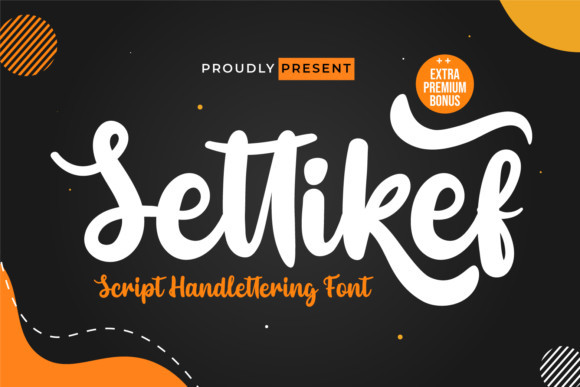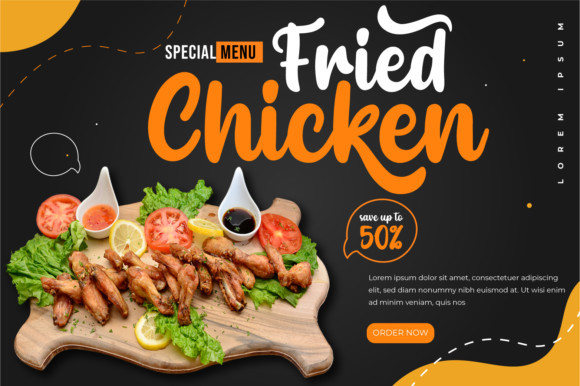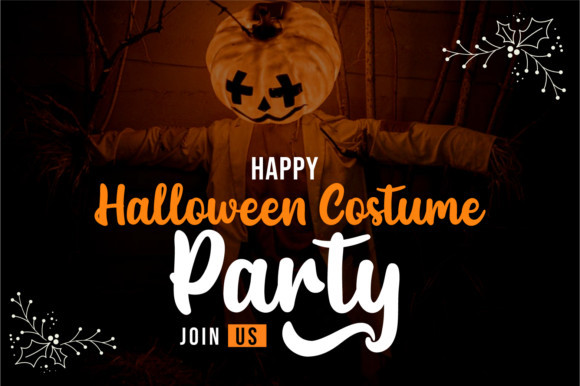
Settikef Font
Settikef is a flowing handwritten font, created with the help of a beautiful brush pen. Fall in love with its incredibly versatile style and use it to create gorgeous logos, media posts and so much more!